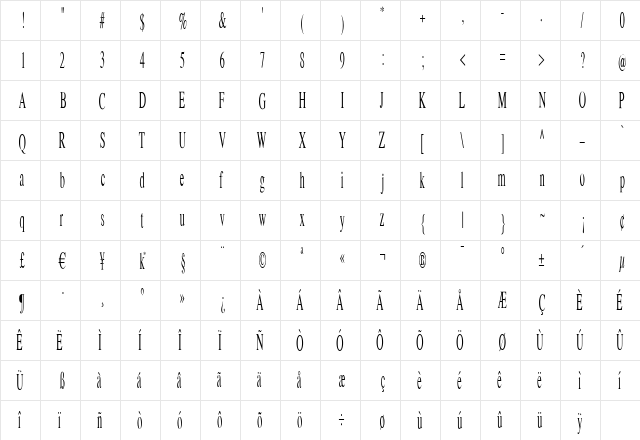
MKlimesCondensed Regular
Design Context for MKlimesCondensed Typeface
MKlimesCondensed offers clean, dependable letterforms without strong stylistic allegiance, making it a practical choice for designers who need flexibility. The condensed width makes it efficient for tight spaces without sacrificing legibility.
Pro Tip: Use MKlimesCondensed in both headline and body roles to test its range before committing to a single application.